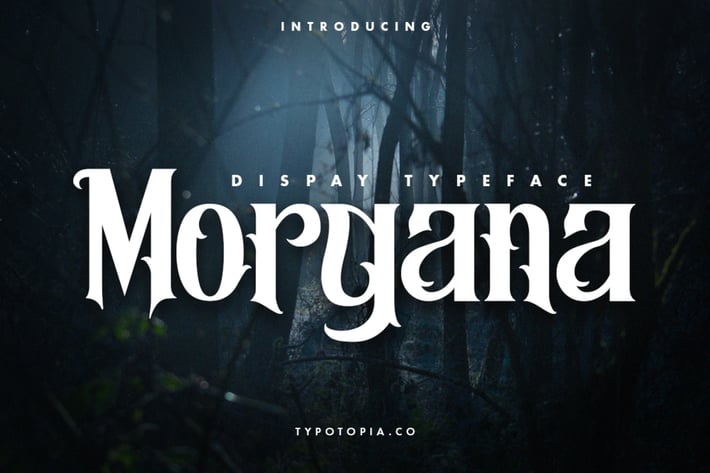
Morgana – Display Font
Introducing Morgana – Display Font an Incredibly Unique and Interesting Display Font for Your Designs. This perfect for the purposes of designing templates, brochures, videos, advertising branding, logos and more.